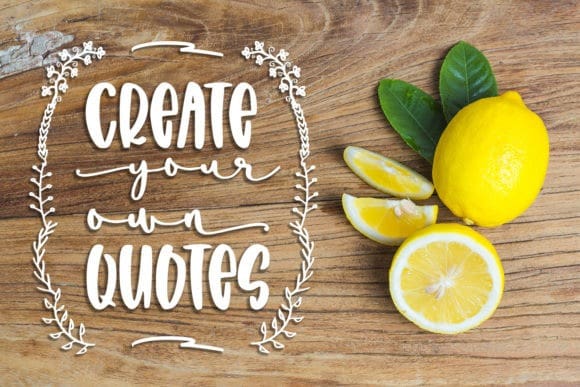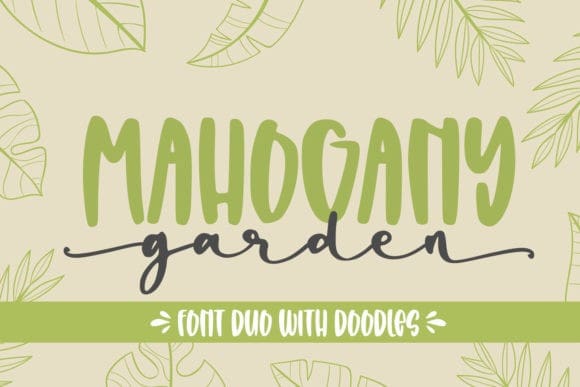
Mahogany Garden Font
Mahogany Garden Font is a lovely duo font (two styles of handwritten and dingbats). Together or apart, these fonts are ideal for adding a chic and cheery touch to your crafts. This font is PUA encoded which means you can access all glyphs and swashes with ease!